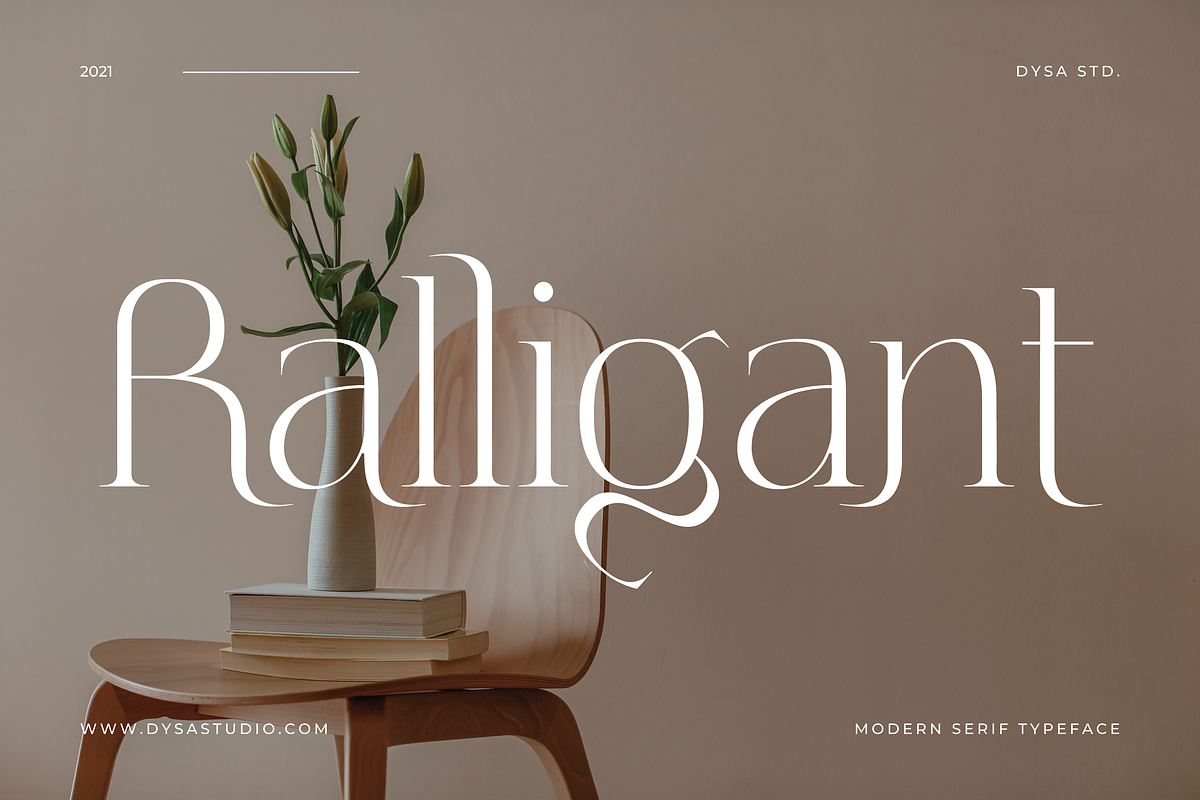
Ralligant Font Free Download is a bold and sophisticated serif typeface that blends modern flair with timeless elegance. Featuring sharp serifs, high contrast strokes, and stylish curves, this font is ideal for luxury branding, editorial layouts, fashion campaigns, logo design, and upscale packaging.
Ralligant Font Free Download delivers a powerful yet refined presence, making it perfect for designers who want their typography to feel both strong and graceful. Whether used in large headlines or classy branding applications, this font adds professionalism and style to any design.